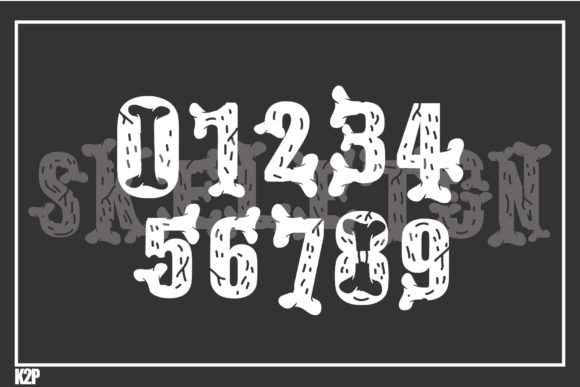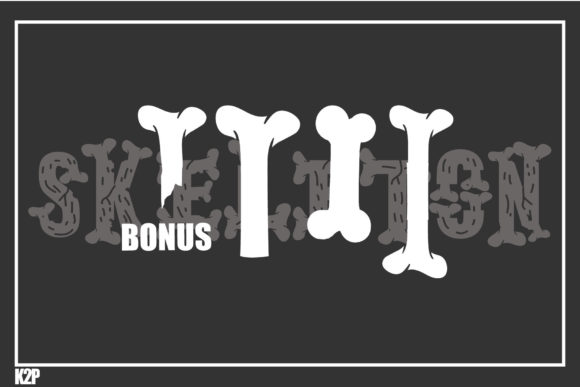
Introduction to Skeleton Halloween Font
As a designer, you know the thrill of finding the perfect font to bring your creative project to life. And if you’re anything like me, you’re probably on the lookout for something that screams Halloween spirit. I remember the moment I stumbled upon the Skeleton Halloween Font – it was love at first sight! Its thick, bold letters seemed to leap off the page, begging to be used in a spooky design project.
Whether you’re crafting a Halloween-themed invitation, designing a ghostly logo, or simply adding a touch of macabre to a social media post, the Skeleton Halloween Font is the perfect design resource. Its transparent background makes it easy to layer over other elements, while its high-quality design ensures it looks great on any platform. And the best part? It’s available for free download, making it a valuable addition to any designer’s toolkit.
Skeleton Halloween Font
- High-quality, spooky design perfect for a creative project, especially during Halloween.
- Comes with a transparent background, allowing for easy customization and integration into any design.
- Unique characteristics include intricate, hand-drawn details and a distressed texture, giving it a spooky, vintage feel.
- Perfect for use in invitations, party decorations, and other Halloween-themed designs, adding a touch of creativity and whimsy.
Honest Review: Skeleton Halloween Font
I recently had the opportunity to work with the Skeleton Halloween Font, and I must say it’s been a game-changer for my creative project. The font is perfect for adding a spooky touch to my designs, and the transparent background makes it super easy to integrate into any design resource.
What works well: ✨ The font is incredibly versatile and can be used for a wide range of design projects, from invitations to social media graphics. The high-quality design ensures that it looks great at any size, and the transparent background makes it easy to customize to fit my design needs.
- High-quality design: The font is designed with high-quality in mind, ensuring that it looks great at any size.
Limitations: ⚠️ While the font is generally easy to use, I did find that it can be a bit tricky to edit certain characters. However, this is a minor limitation and doesn’t detract from the overall quality of the font.
Overall impression: I’m really impressed with the Skeleton Halloween Font and would highly recommend it to any designer looking for a high-quality, versatile font for their creative project.
Common Use Cases for Skeleton Halloween Font
The Skeleton Halloween Font is perfect for creating spooky graphics for Halloween parties, haunted houses, and other fall-themed events. It’s also great for creating invitations, decorations, and other creative projects that require a spooky and fun design.
Yes, the Skeleton Halloween Font is designed to be scalable and suitable for use in large-scale designs. Its high-quality design ensures that it remains crisp and clear even at large sizes, making it an ideal choice for posters, billboards, and other large-format designs.